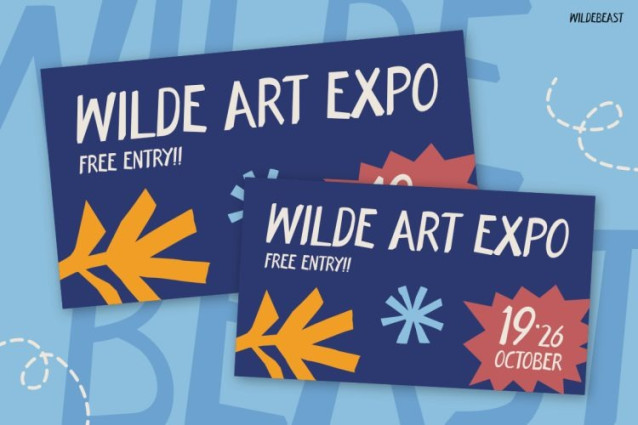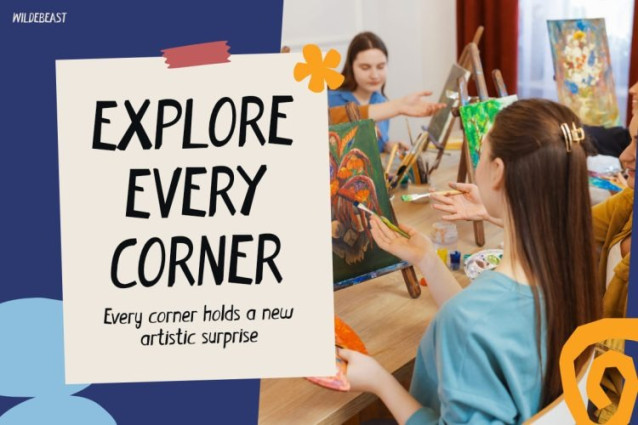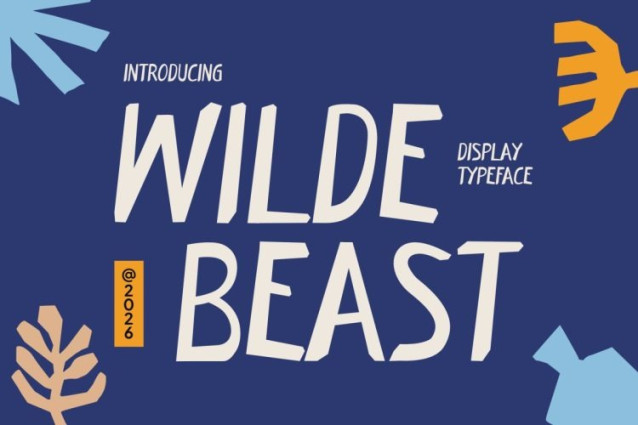
Wildebeast Font
Wildebeast Font is a playful display font created for dreamers, young artists, and creative minds who love to break ordinary design rules. Not only does it feature hand-drawn letterforms with natural imperfections, but it also brings an expressive and artistic personality that feels fresh, free, and full of imagination. Moreover, its sketch-inspired style creates a genuine handmade appearance that instantly captures attention. In addition, the tall and dynamic characters maintain excellent readability while delivering a casual and creative atmosphere. Furthermore, Wildebeast adds a spontaneous artistic touch to every project. As a result, posters, branding materials, and educational visuals become more engaging, memorable, and full of life. Meanwhile, its unique handcrafted charm makes every message feel personal and adventurous. Therefore, Wildebeast is the perfect choice for designs that celebrate creativity without limits.
Wildebeast is designed for projects that embrace art, imagination, and playful exploration. Whether you are creating children’s event posters, art exhibitions, school activities, creative workshops, educational materials, book covers, toy packaging, or social media content, this font brings a bold and inspiring character. Likewise, its handmade aesthetic adds warmth and authenticity to every headline. Furthermore, its energetic strokes help create a relaxed and approachable mood. Consequently, your designs become more attractive and emotionally connected with audiences. At the same time, Wildebeast performs beautifully in both digital and printed formats.